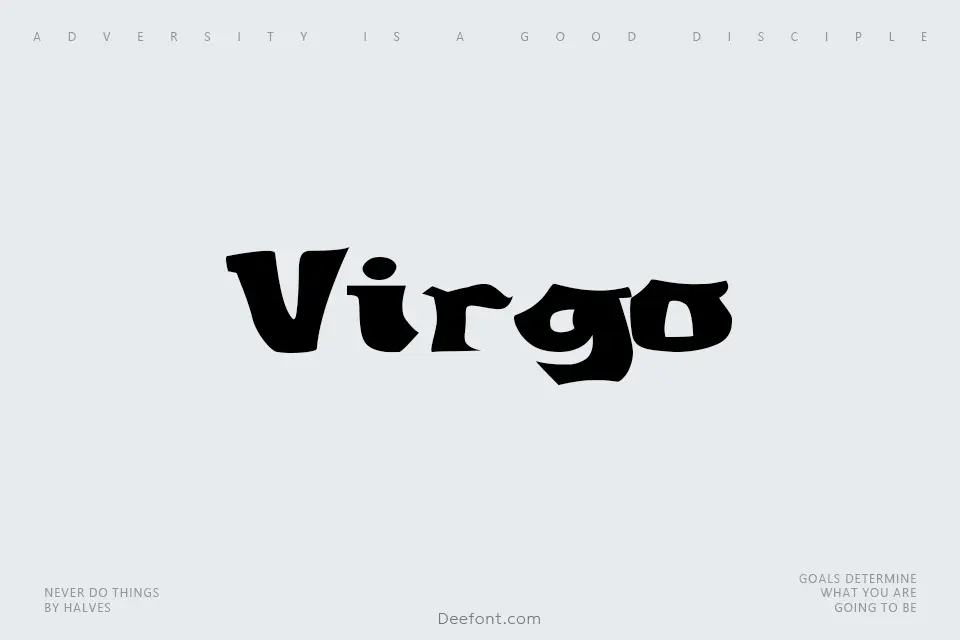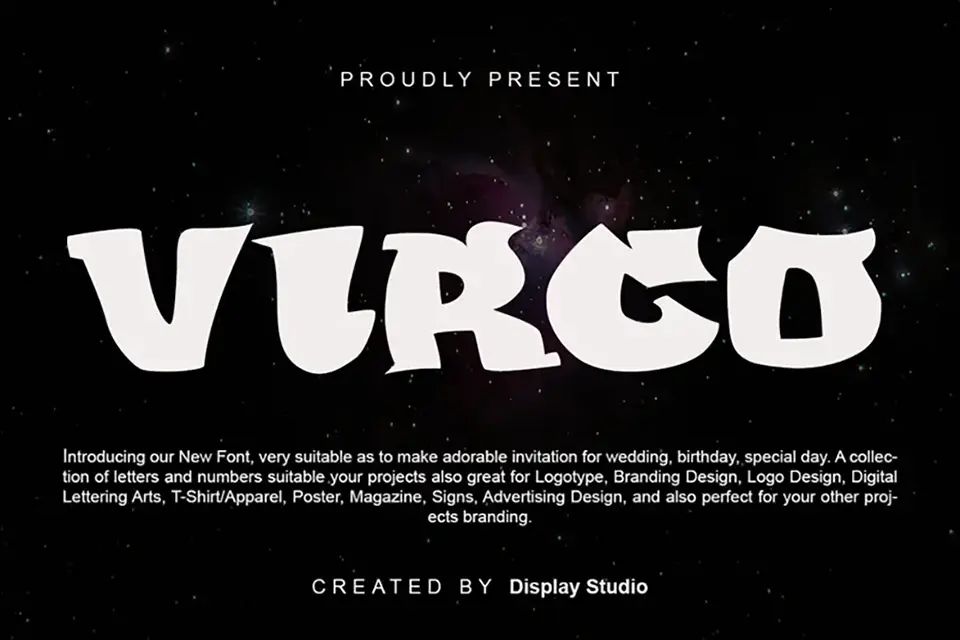
Virgo Font
Virgo is a bold and dynamic graffiti-inspired script font designed by Display Studio. Featuring heavily stylized characters with sharp angles and irregular shapes, this font delivers a playful and energetic aesthetic perfect for urban-themed projects. With 232 carefully crafted glyphs including uppercase, lowercase letters, numbers, and special characters, Virgo maintains consistent design themes with exaggerated curves and high-contrast strokes that create powerful visual movement. Ideal for posters, logos, street art designs, music album covers, and branding projects requiring strong edgy appeal.